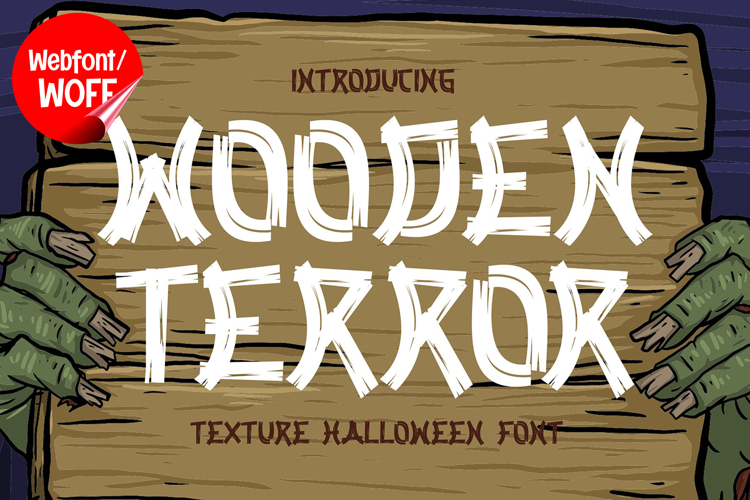
Wooden Terror | Halloween Creepy Webfont for Dark Design
Wooden Terror is a Halloween creepy webfont designed to bring a dark, eerie, and unsettling atmosphere into modern website design. Inspired by horror elements such as twisted wood textures, haunted environments, and mysterious shadows, this font features rough edges and irregular shapes that create a chilling visual impact. It is an excellent choice for projects that aim to deliver a dramatic and immersive horror experience.
Wooden Terror includes a complete set of uppercase characters designed with creepy, wood-inspired forms. The letterforms feature jagged lines and uneven textures that give the impression of carved or distorted wooden shapes. These characteristics make it ideal for headlines, banners, hero sections, and featured content where a strong and haunting presence is needed.
In addition to letters, the font includes numbers and punctuation, allowing flexible usage across various parts of a website. It works well for Halloween promotions, horror-themed content, event announcements, and creative storytelling layouts. Each character maintains a consistent creepy style, ensuring a cohesive and unified visual identity throughout the design.
With multilingual support, Wooden Terror includes a wide range of accented characters, making it suitable for international websites and global audiences. This allows content to be displayed clearly across different languages while preserving the eerie and atmospheric aesthetic.
The Halloween creepy style of Wooden Terror makes it especially suitable for seasonal websites, haunted attractions, horror blogs, gaming platforms, and themed campaigns. Its rough and dramatic design adds tension and personality, helping websites stand out with a unique and memorable visual identity. The wood-inspired details enhance the sense of realism and storytelling.
Despite its heavily stylized and eerie appearance, Wooden Terror is designed with readability in mind. The spacing and proportions are carefully balanced to ensure clarity, particularly in display sizes. This makes it effective for impactful headings and short content elements where both style and usability are important.
Wooden Terror is a webfont that combines horror aesthetics with textured detail and modern digital performance. Its jagged shapes, wood-inspired character, and dark tone create a distinctive typographic presence that enhances website design. For projects that require a spooky, dramatic, and visually engaging font, Wooden Terror offers a powerful and atmospheric solution.